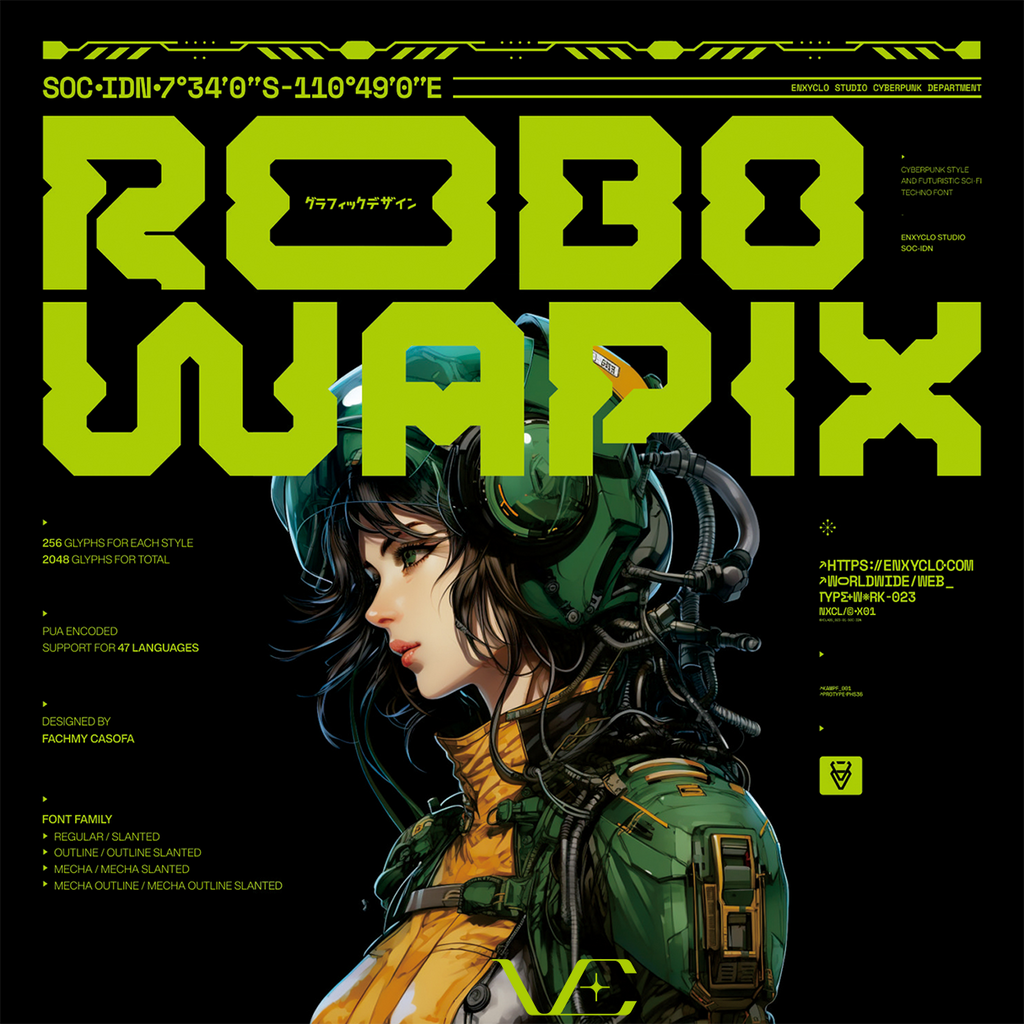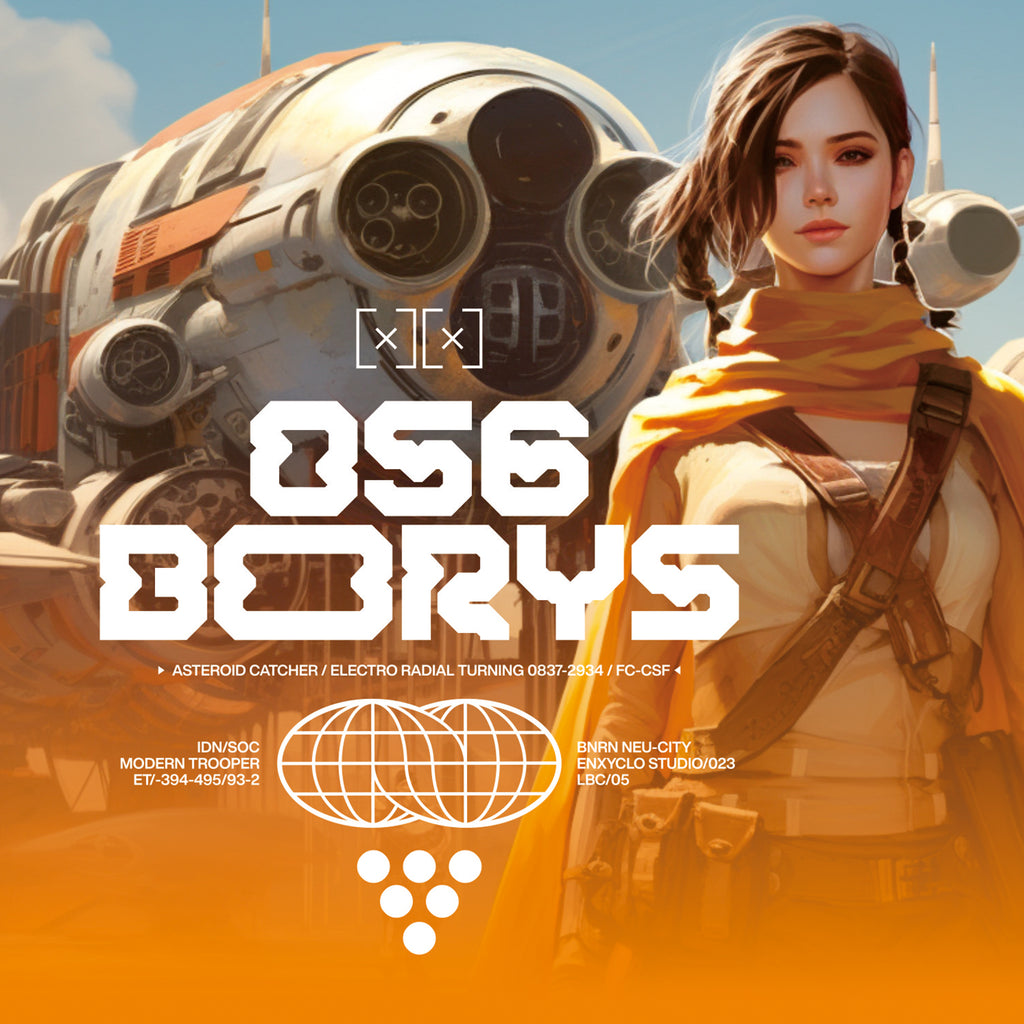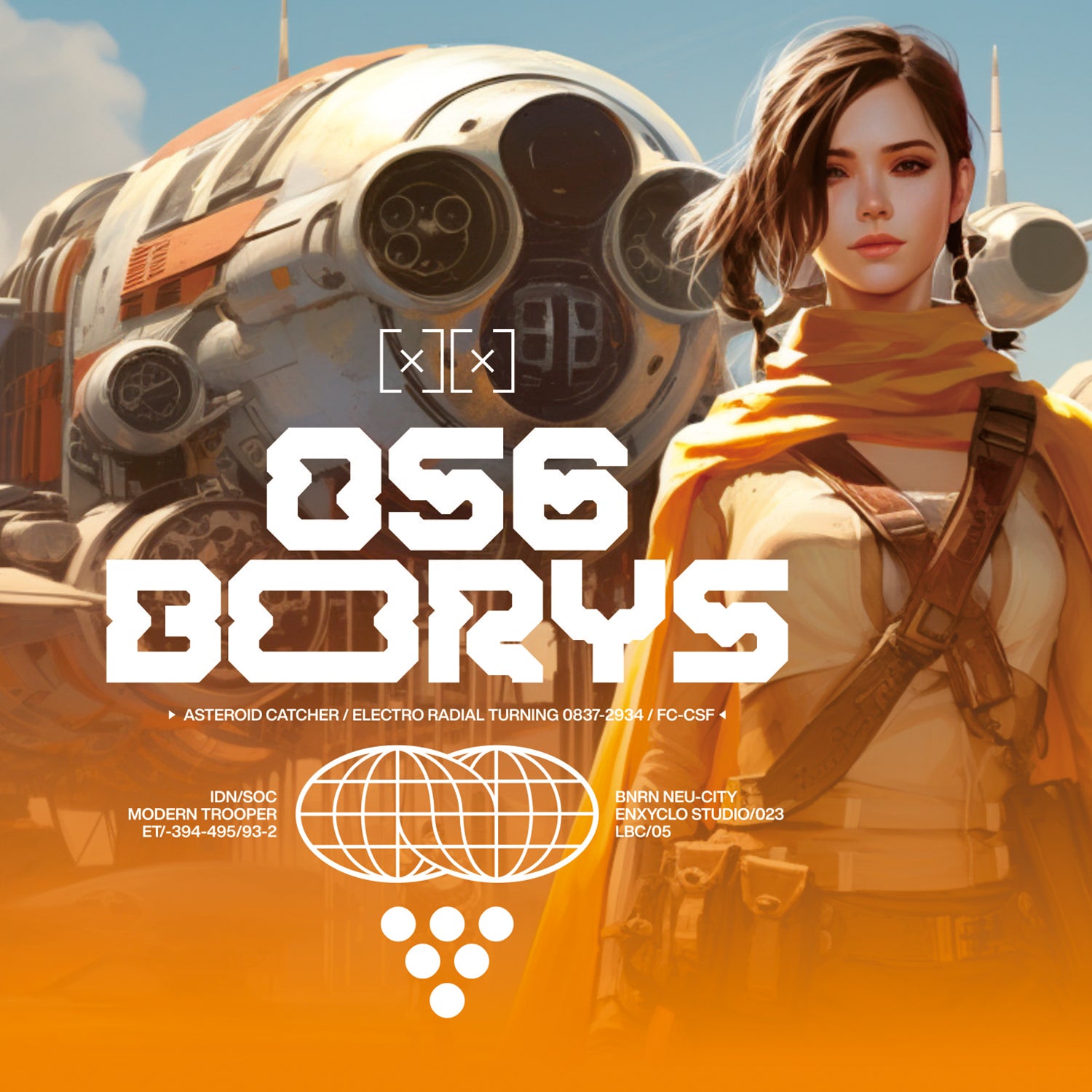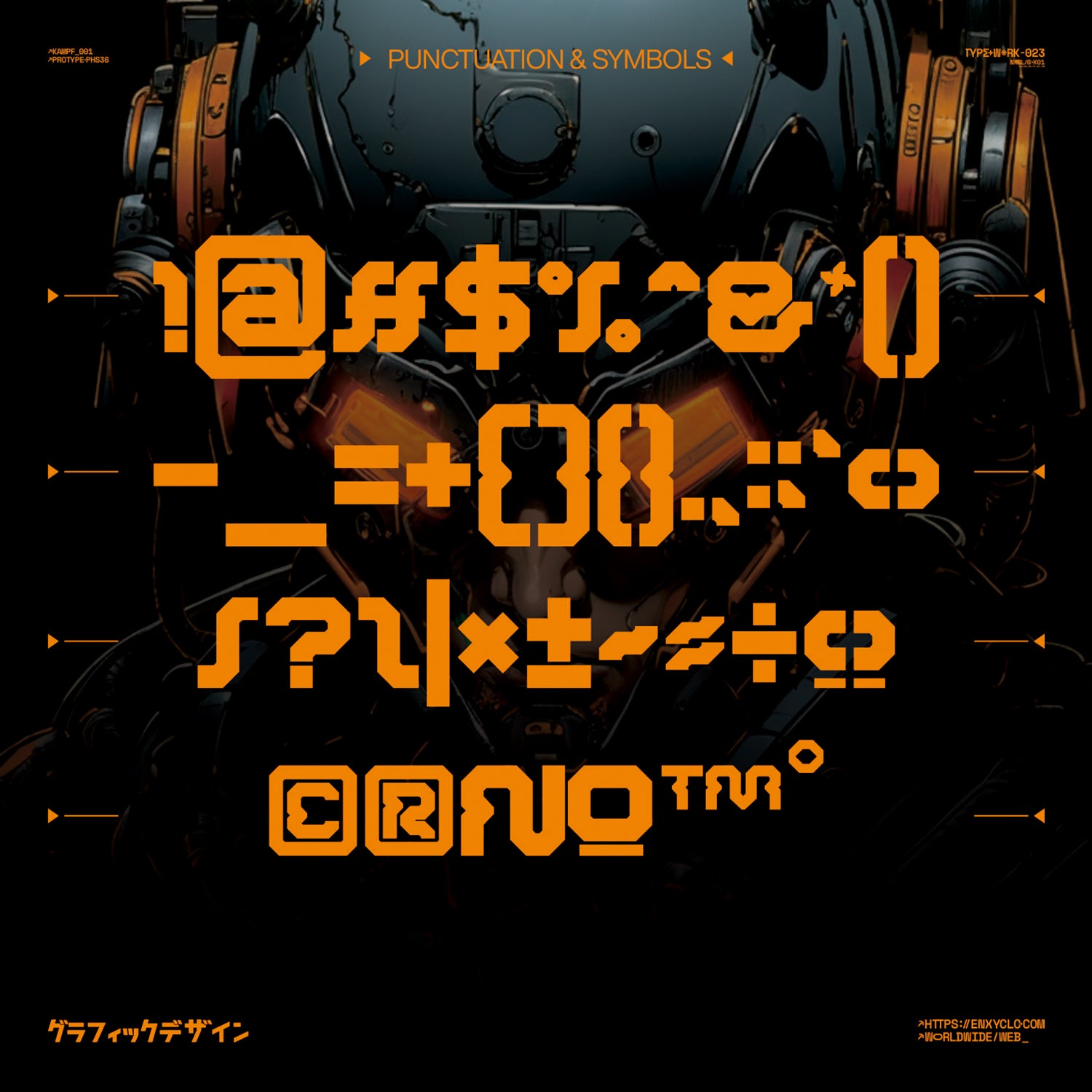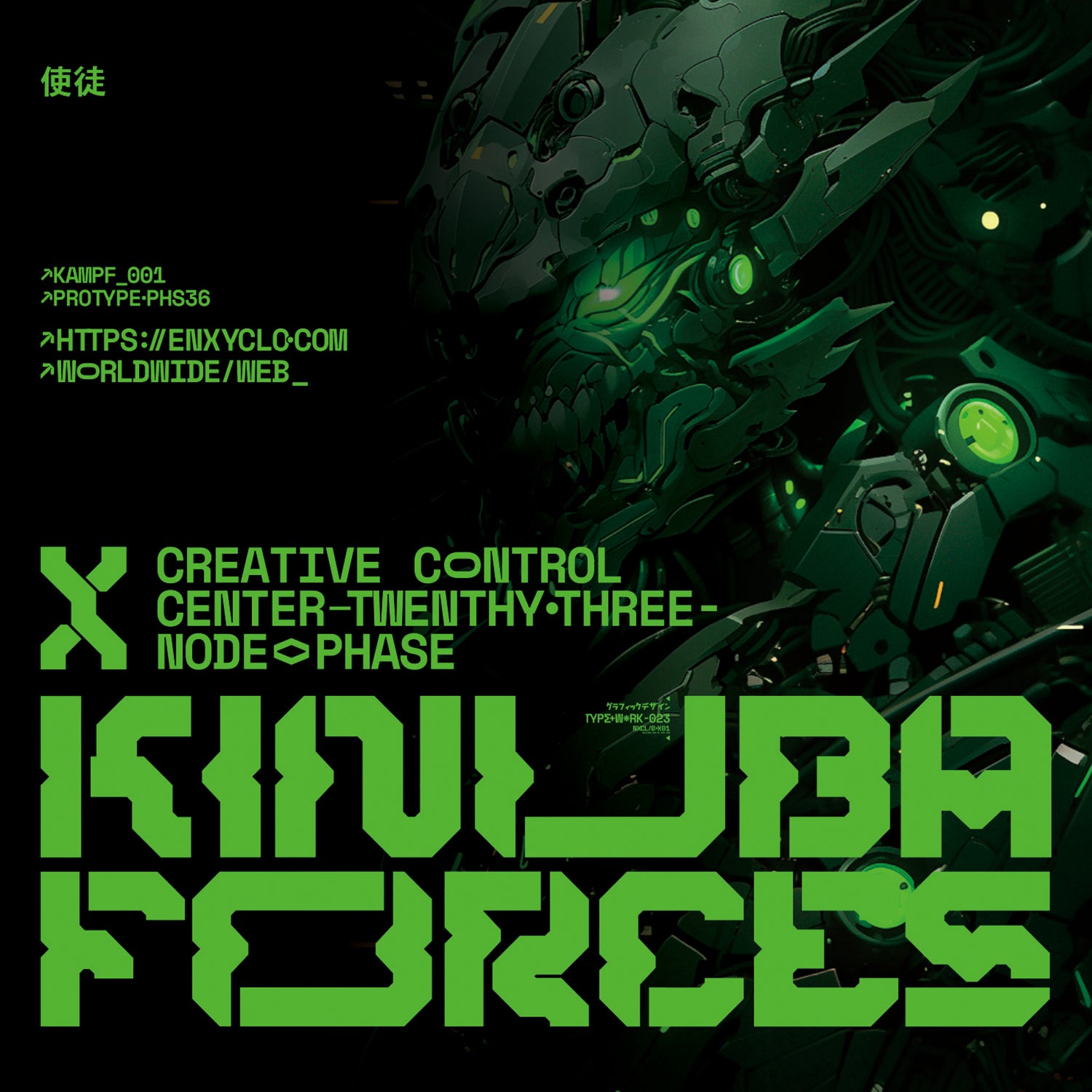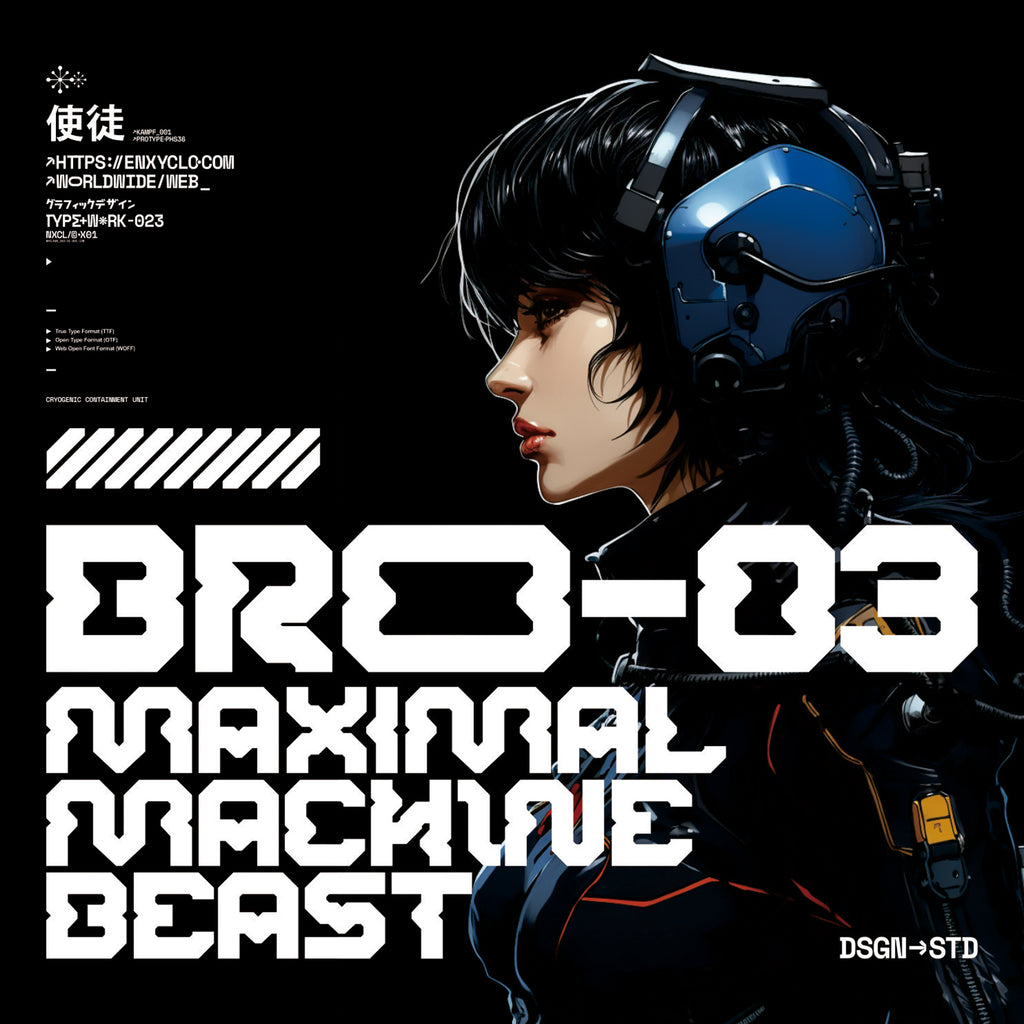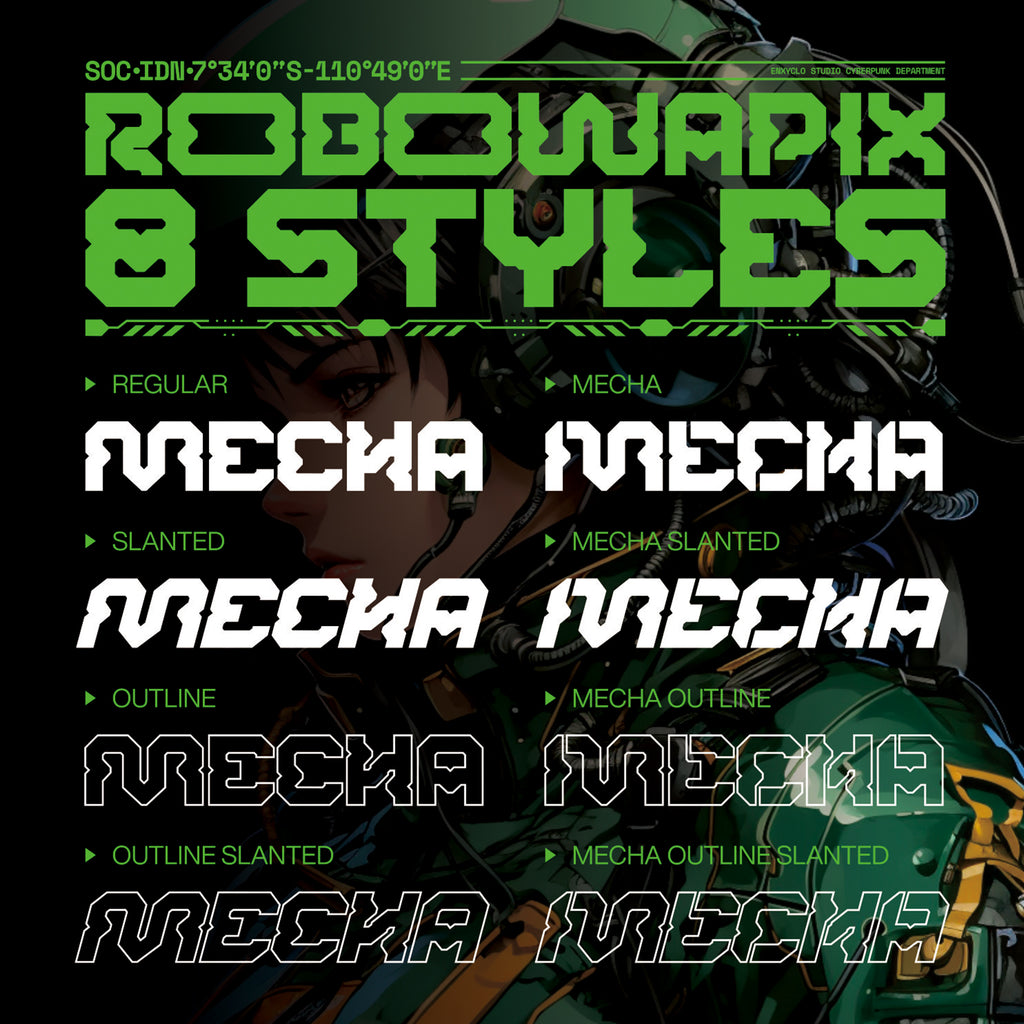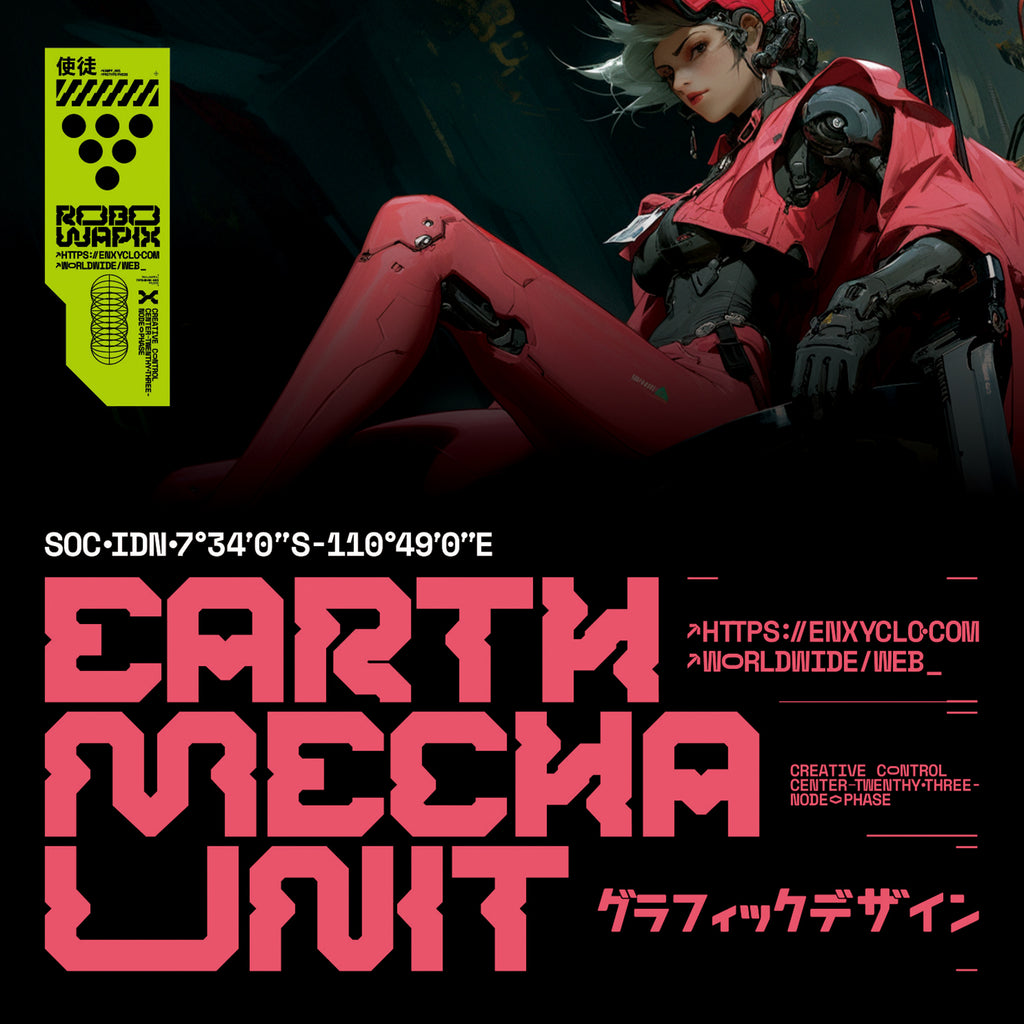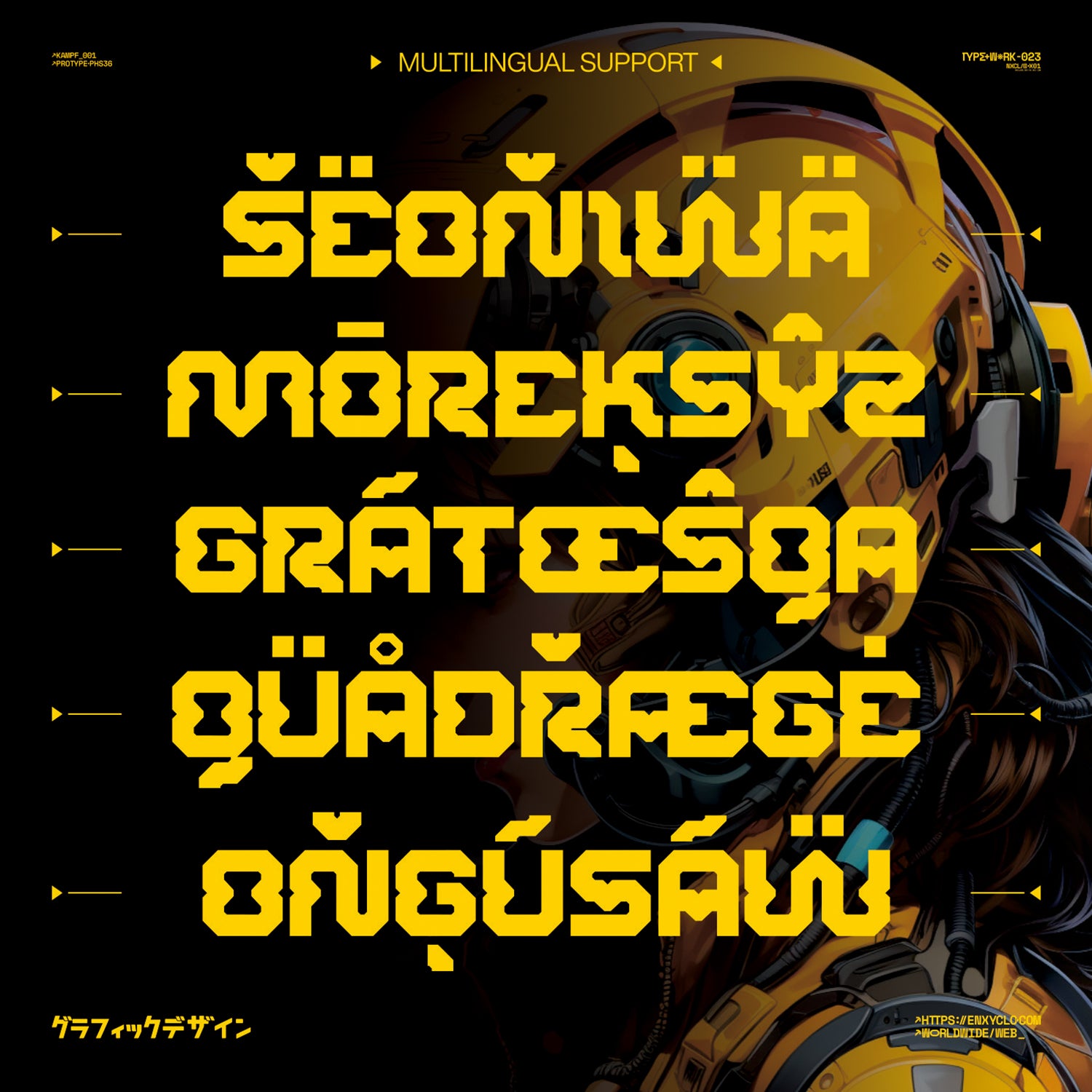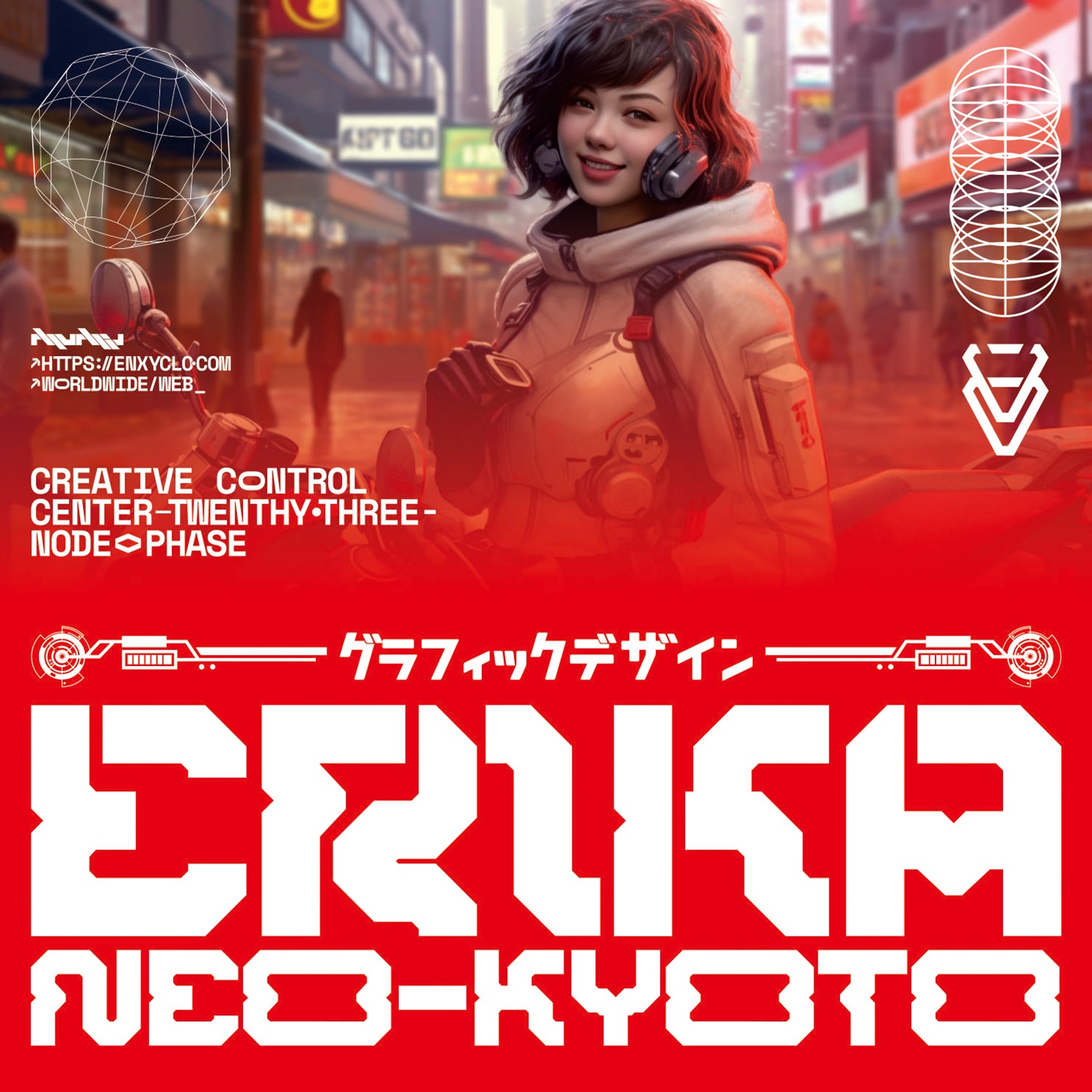
NCL ROBOWAPIX • Cyberpunk Typeface
NCL ROBOWAPIX is not your ordinary font; it’s a cyberpunk futuristic techno mecha font with 8 styles (Regular, Regular Slanted, Regular Outline, Regular Outline Slanted, Mecha, Mecha Slanted, Mecha Outline, Mecha Outline Slanted) that takes your creativity to the next level. Its futuristic aesthetics bring a whole new dimension to your designs, making them stand out. Whether you’re working on a website, poster, logo, or any other project, this font adds that extra touch of innovation and sophistication.
- 8 Styles:
- NCL Robowapix Regular
- NCL Robowapix Regular Slanted
- NCL Robowapix Regular Outline
- NCL Robowapix Regular Outline Slanted
- NCL Robowapix Mecha
- NCL Robowapix Mecha Slanted
- NCL Robowapix Mecha Outline
- NCL Robowapix Mecha Outline Slanted
- Contains 256 Glyphs for Each Style and 2048 Glyphs for Total
- Uppercase & Lowercase
- Numeral, Punctuation & Symbols
- Support for 47 Languages: Asu, Bemba, Bena, Chiga, Cornish, Embu, English, Esperanto, Estonian, Filipino, Finnish, Gusii, Indonesian, Kabuverdianu, Kalenjin, Kamba, Kikuyu, Kinyarwanda, Latvian, Luo, Luyia, Machame, Makhuwa-Meetto, Makonde, Meru, Morisyen, North Ndebele, Nyankole, Oromo, Quechua, Rombo, Rundi, Rwa, Samburu, Sangu, Shambala, Shona, Soga, Somali, Swahili, Swiss German, Taita, Teso, Uzbek (Latin), Volapük, Vunjo, Zulu.